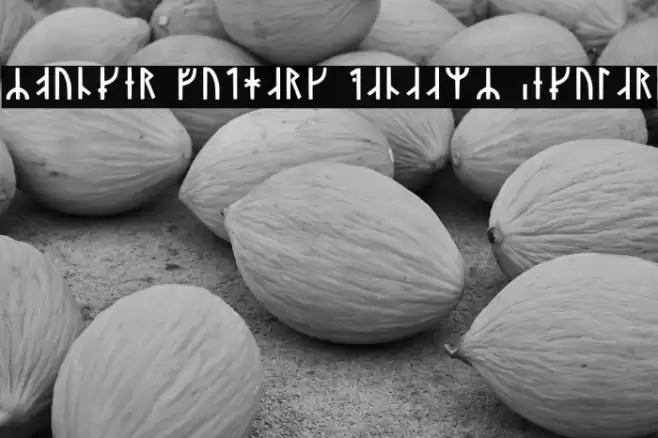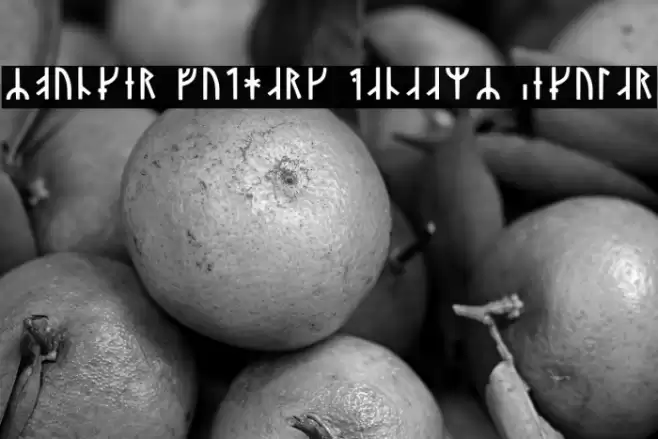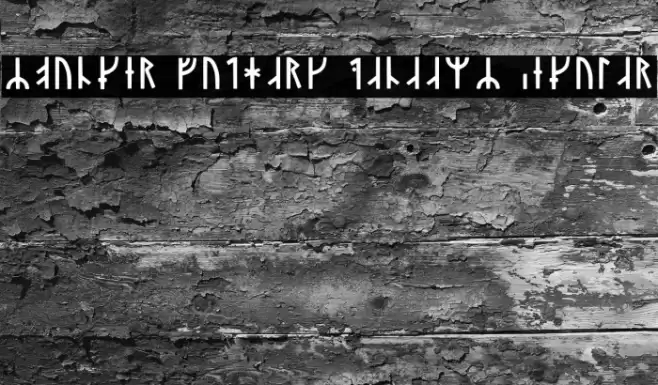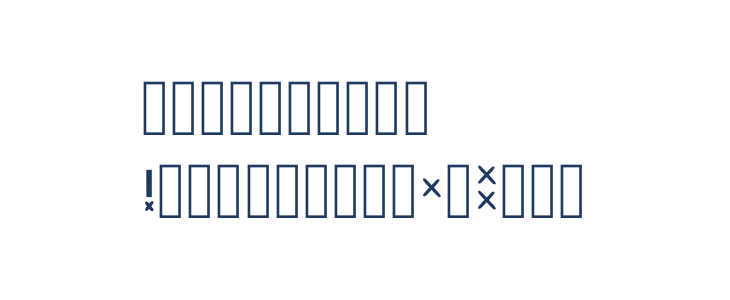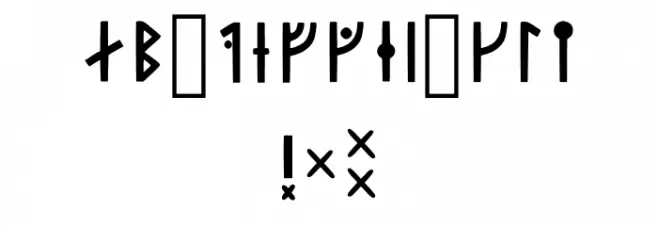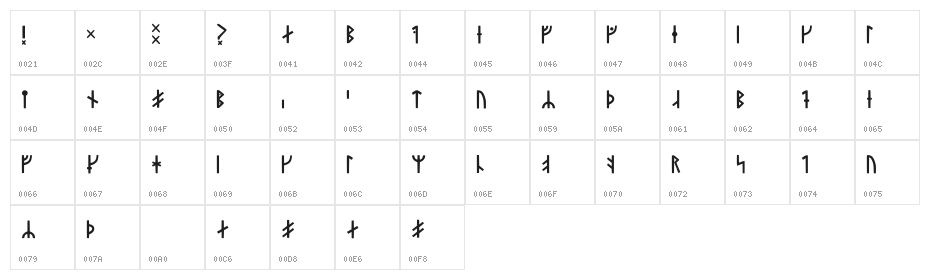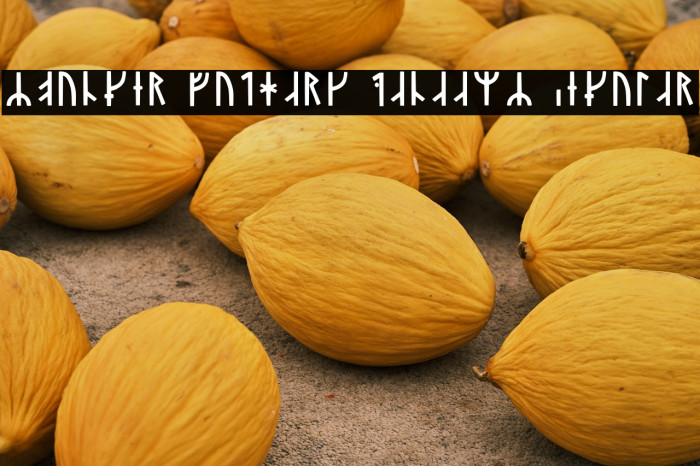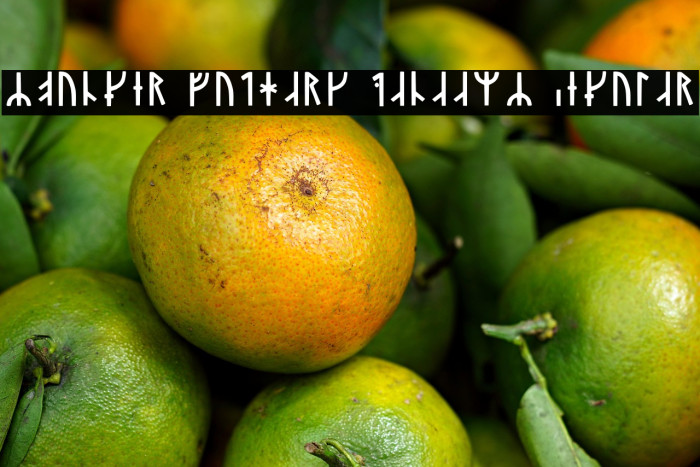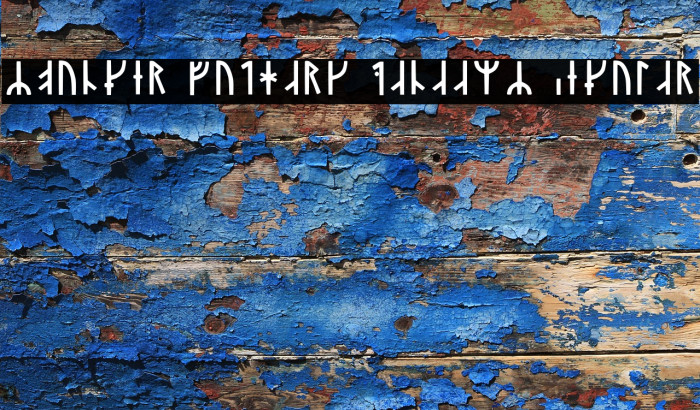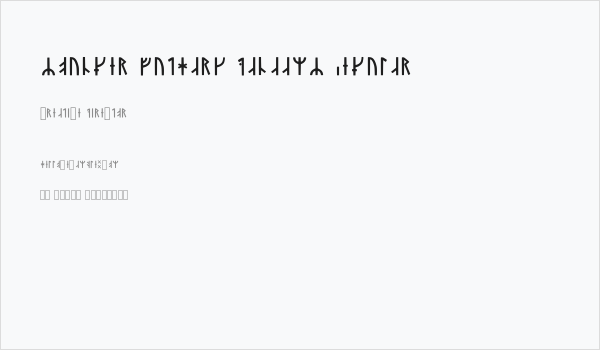
Younger Futhark Danaamy Regular Font
Younger Futhark Danaamy Regular Description
This font is inspired by the ancient runic alphabets, specifically the Younger Futhark. It features angular and geometric shapes that evoke a sense of historical and mystical significance. The characters are bold and distinct, with a uniform stroke width that gives them a strong presence. The design is minimalistic yet striking, capturing the essence of ancient scripts while maintaining readability. This font is perfect for projects that aim to convey a sense of tradition, mystery, or historical depth.
A bold, geometric font inspired by ancient runic alphabets from Regular fonts.
- Proposed Projects: Ideal for historical or fantasy-themed projects, game design, book covers, and cultural exhibitions.
- Overall Style: Vintage
- Use Case: Logos, Headlines, Themed events